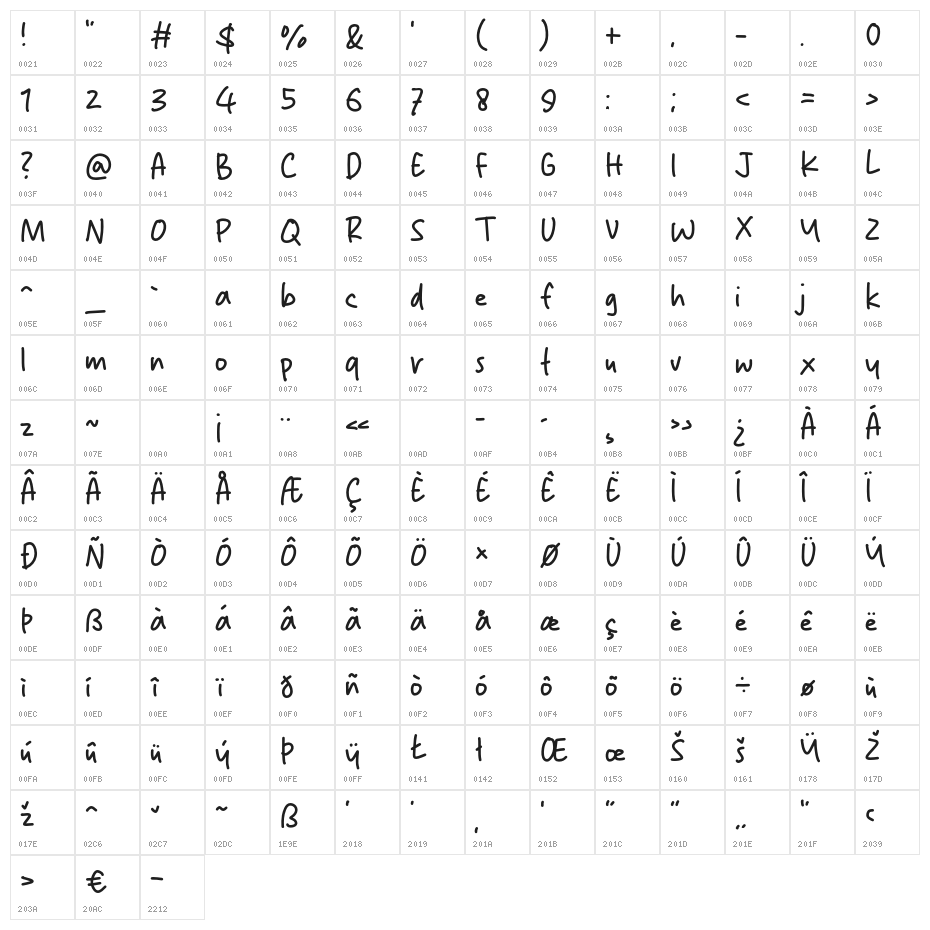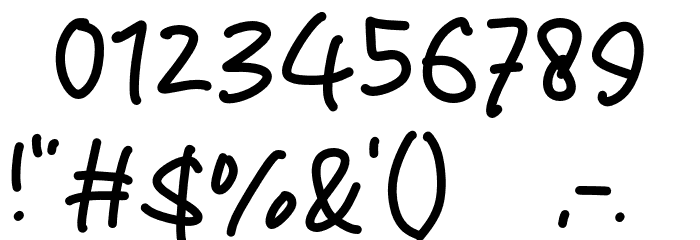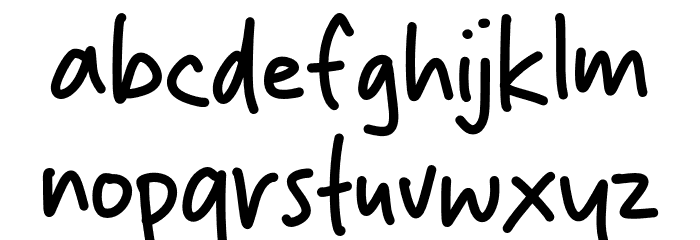
Roudway Font
| Style général | Casual |
| Cas d'utilisation | Logos, Headlines, Informal Text |
| Projets proposés | Ideal for greeting cards, children's books, informal invitations, and social media graphics. |